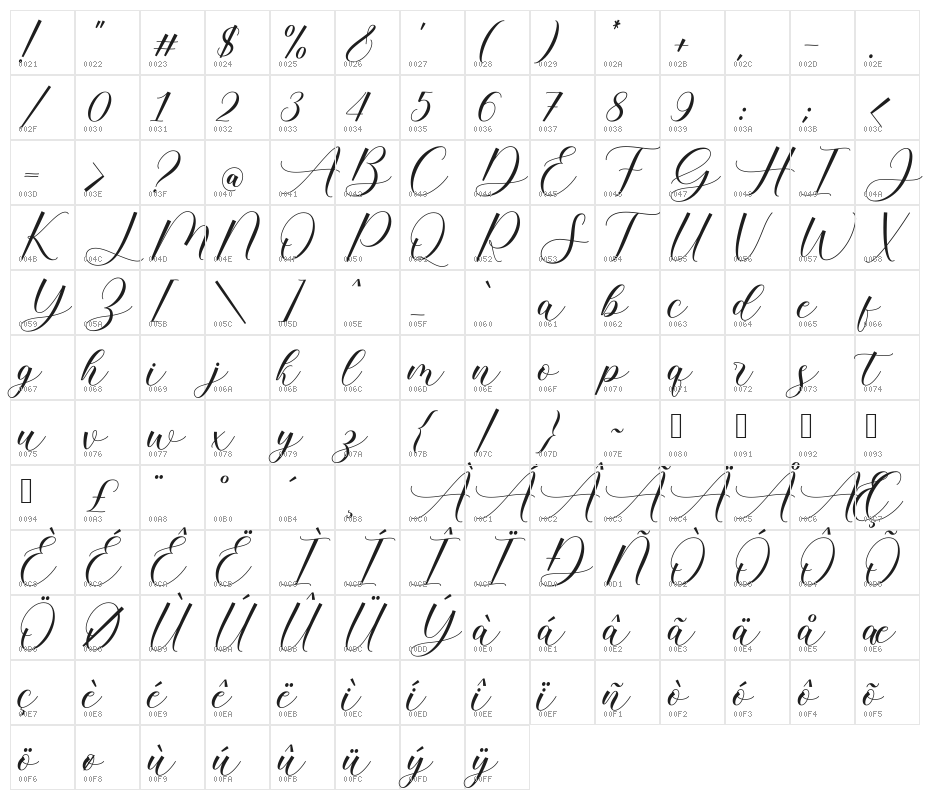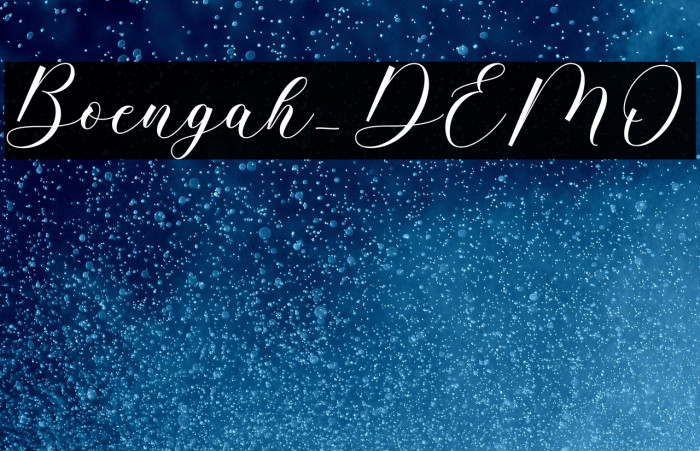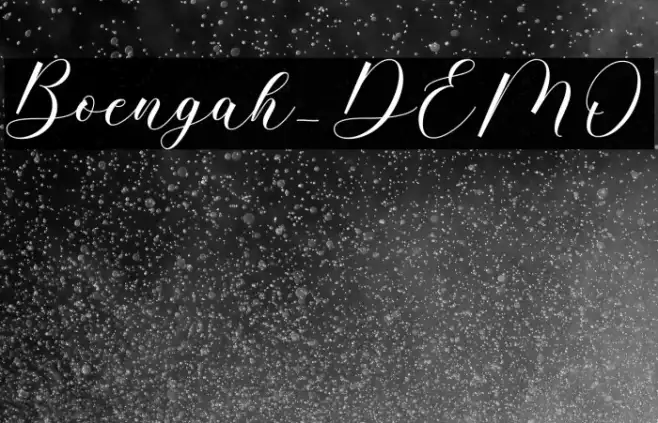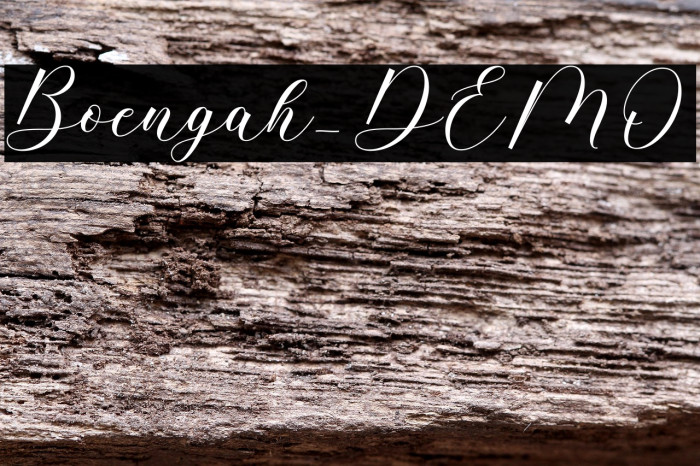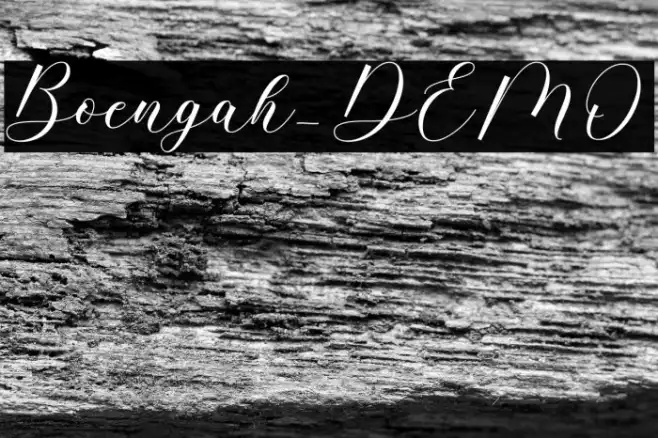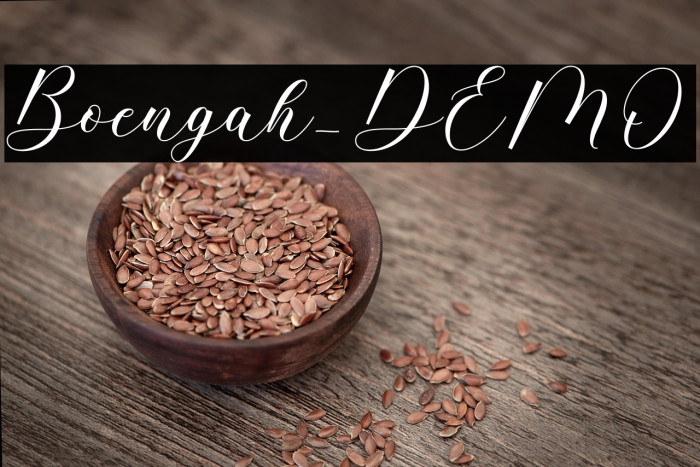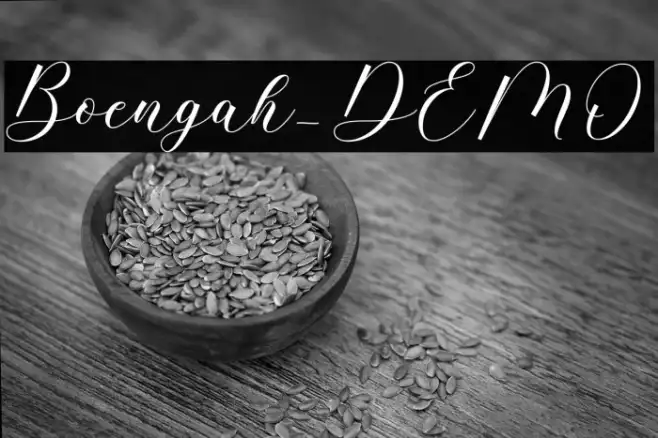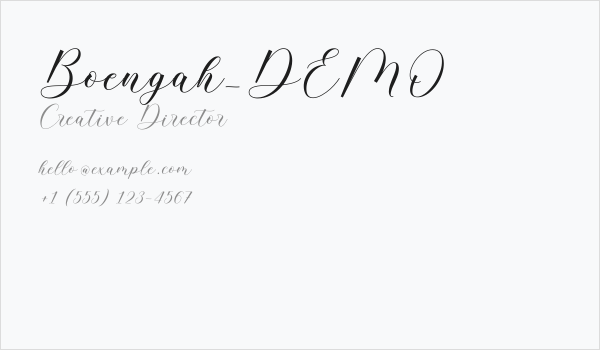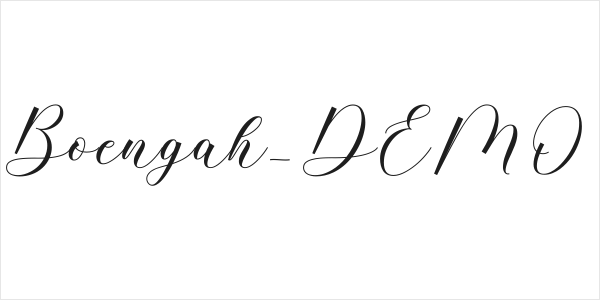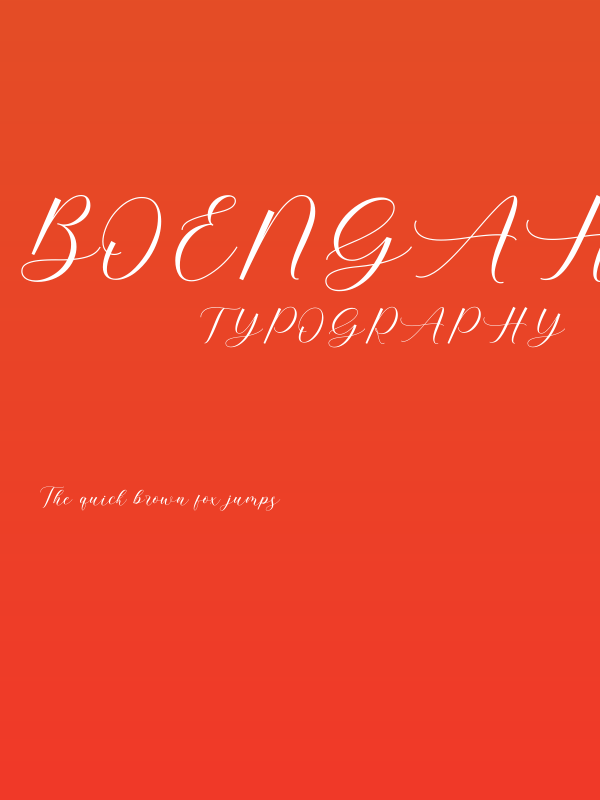
Boengah_DEMO Font
Boengah_DEMO Description
This elegant script font features a flowing, cursive style with smooth, connected strokes. The uppercase letters are tall and graceful, with sweeping ascenders and descenders that add a sense of movement and fluidity. The lowercase letters maintain a consistent rhythm, enhancing readability while preserving the decorative nature of the script. Numbers and special characters are designed with the same attention to detail, ensuring a cohesive look across all elements. The font's delicate lines and curves make it ideal for projects that require a touch of sophistication and charm.
| Proposed Projects | Ideal for wedding invitations, greeting cards, elegant branding, and decorative headlines. |